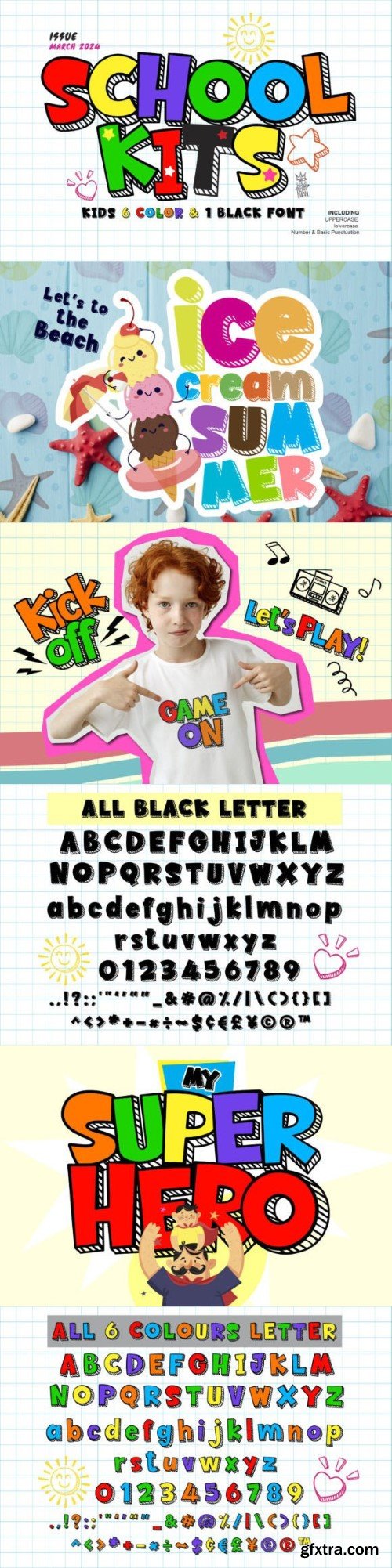
学校用品字体
School Kits is a playful and colorful font. You can use it to make original designs, book covers, birthday cards, greeting cards, and many other creations that need a sweet, cheerful vibe.